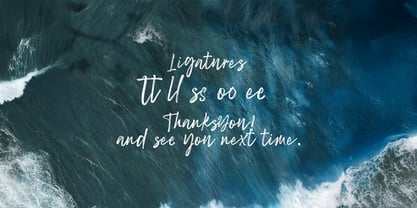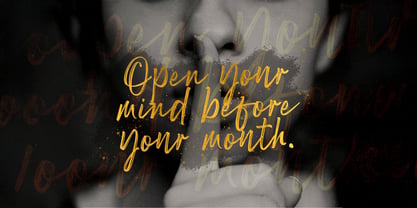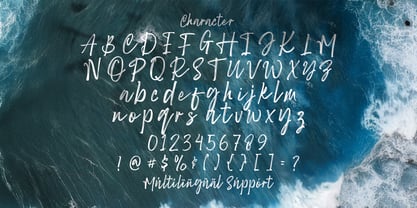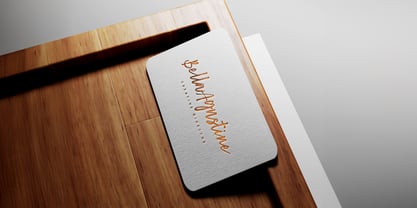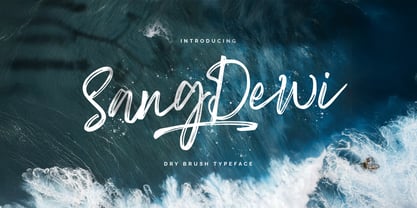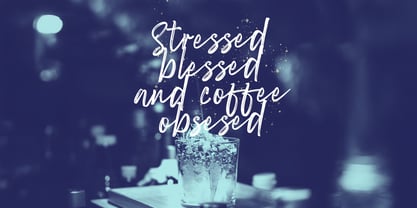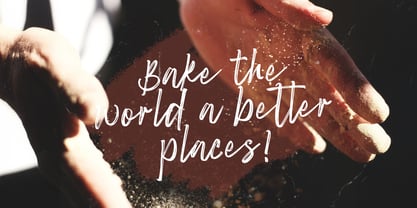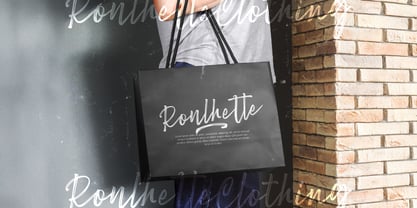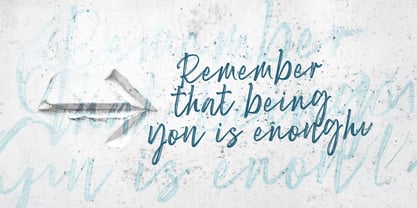
Die Schriftfamilie Sang Dewi wurde von Virgiawan Listanto entworfen und von Stringlabs Creative Studio veröffentlicht. Sang Dewi enthält 1 Stile.
Sang Dewi is a vibrant and energetic handbrush script font that captures the beauty of bold, freehand lettering. With its expressive brushstrokes and dynamic curves, this font offers a perfect balance of casual elegance and creative flair.
Designer: Virgiawan Listanto
Sang Dewi